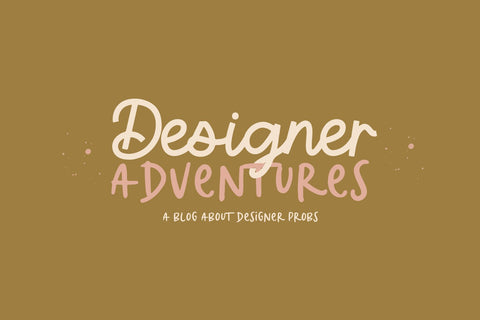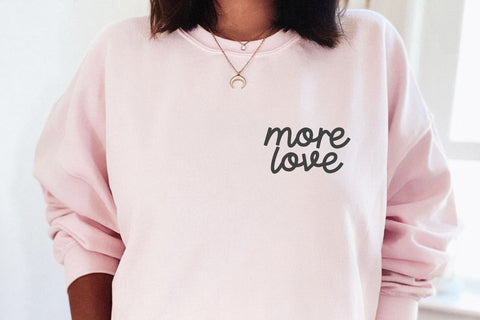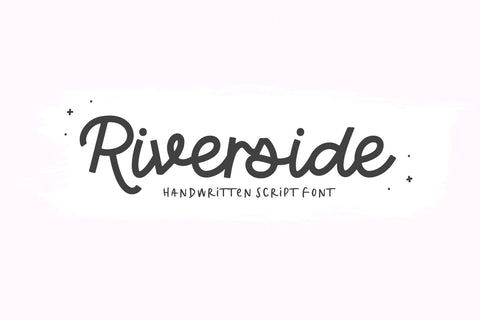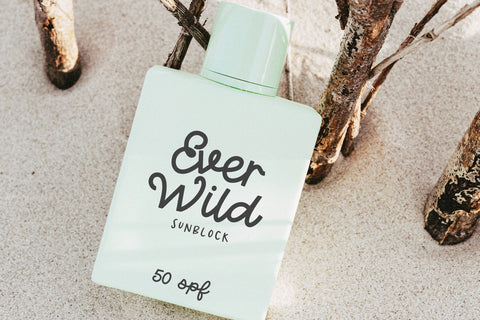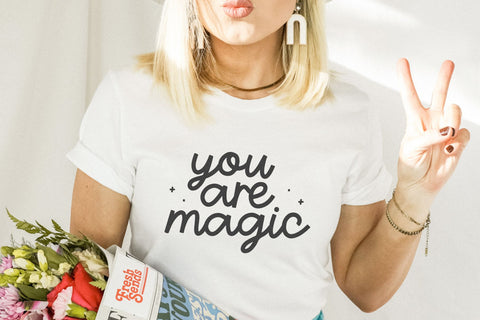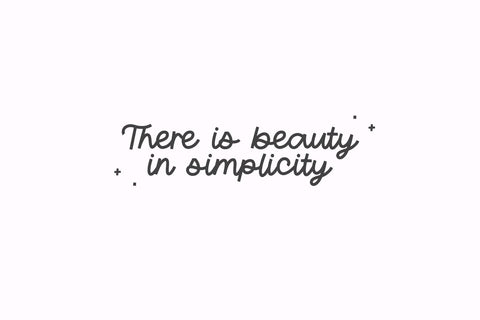
Riverside - Handwritten Script Font
Koralie is handwritten script font.
This font is perfect for your farmhouse designs, cricut projects, retro designs, logos, wedding decor and more!